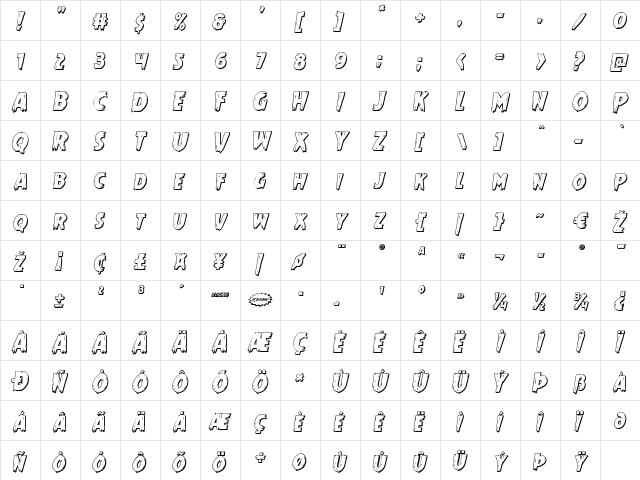
Mrs. Monster 3D Italic Italic Font Preview
Mrs. Monster 3D Italic Italic
Design Context for Mrs. Monster 3D Italic Typeface
Mrs. Monster 3D Italic is a composed and adaptable typeface that performs quietly and consistently across a wide range of design contexts. The dynamic lean of this cut emphasises speed and emphasis in any layout.
Pro Tip: Try Mrs. Monster 3D Italic for annotation and caption copy alongside an upright companion — the contrast in angle creates a dynamic but ordered typographic system.